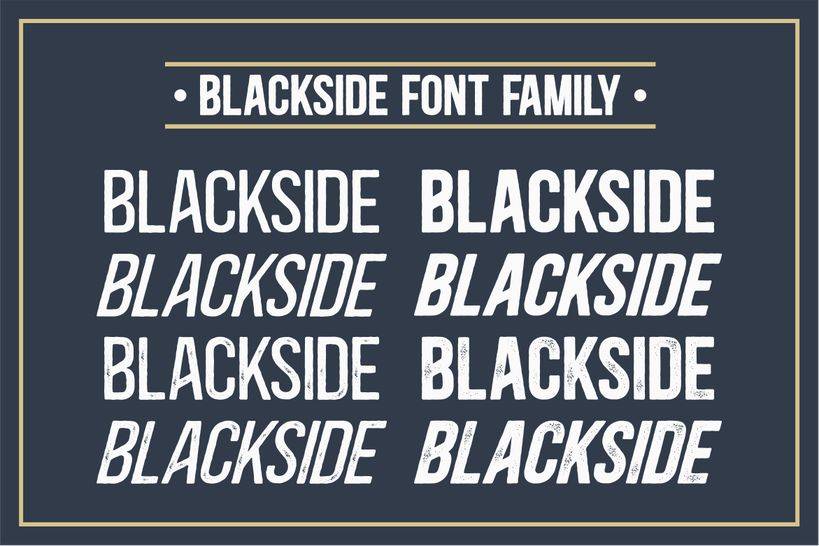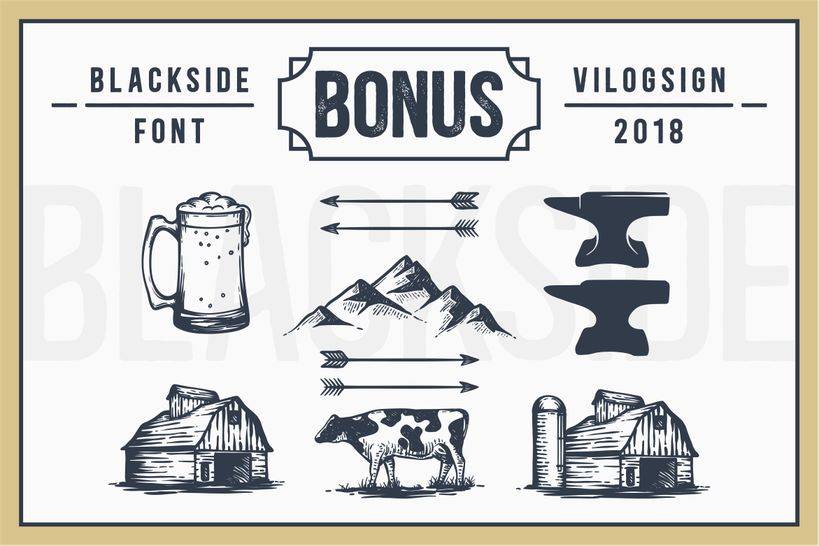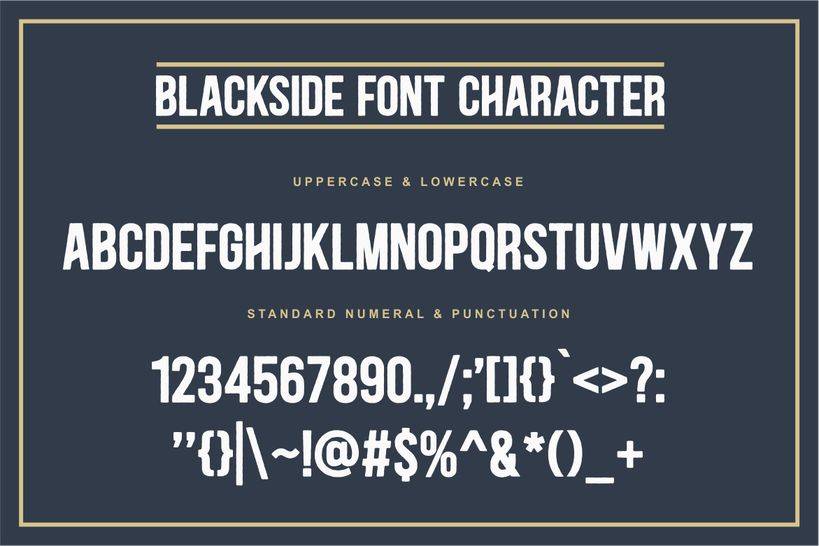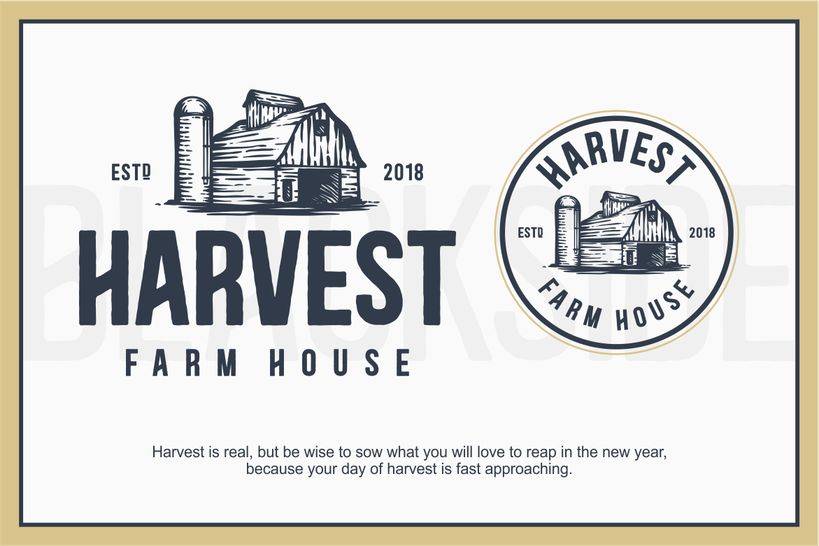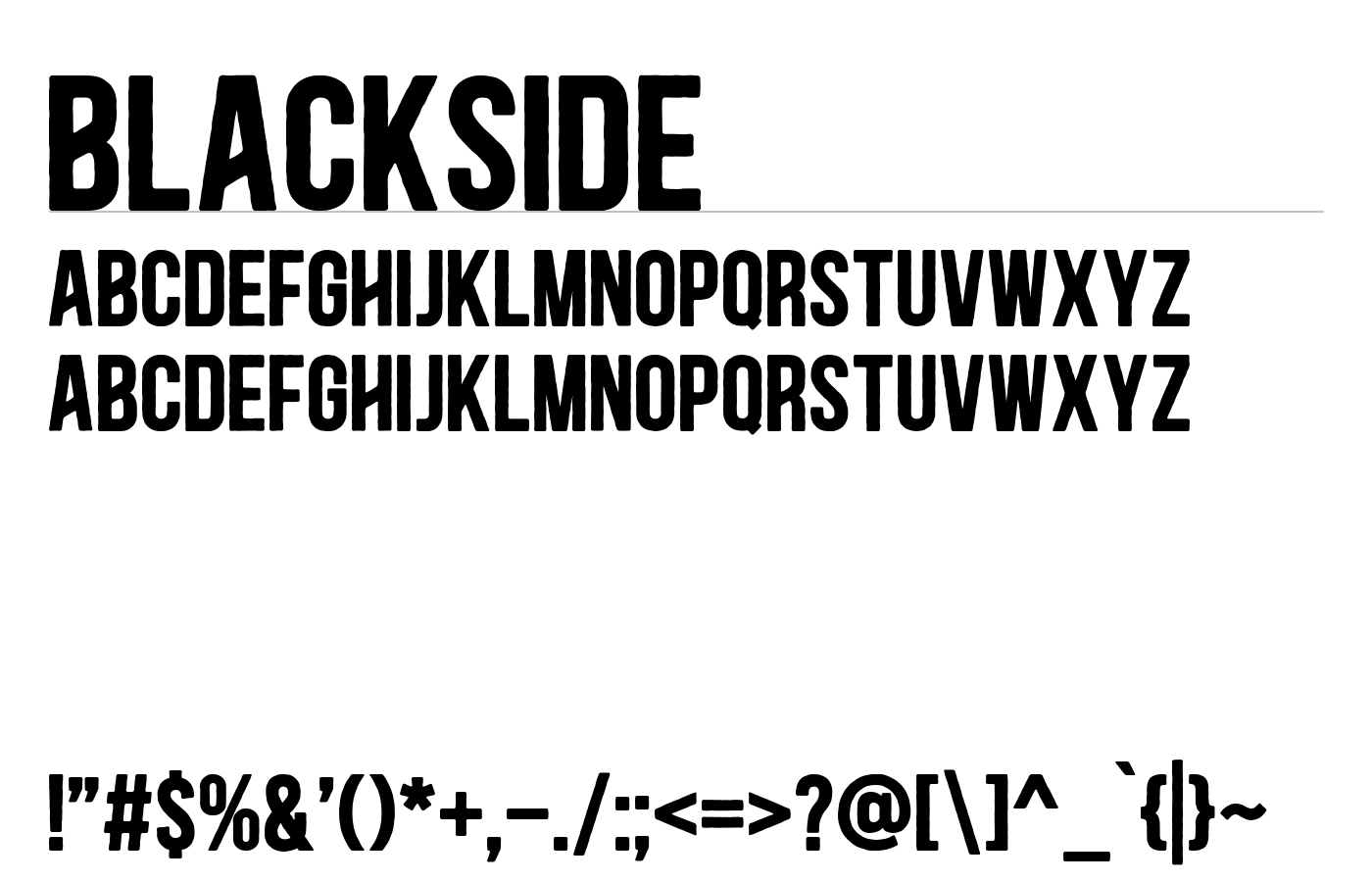
Blackside is a bold, condensed sans serif font with a slightly rough, hand-crafted feel that adds character and strength to any design. Its tall, narrow letterforms and consistent heavy weight make it ideal for impactful headlines, branding, and posters where attention is crucial. This font’s distinctive style blends modern intensity with a touch of vintage grit, making it perfect for creative projects that want to stand out with confidence and edge.
Blackside Font
About Blackside Font
| Designer | Vilogsign 2018 |